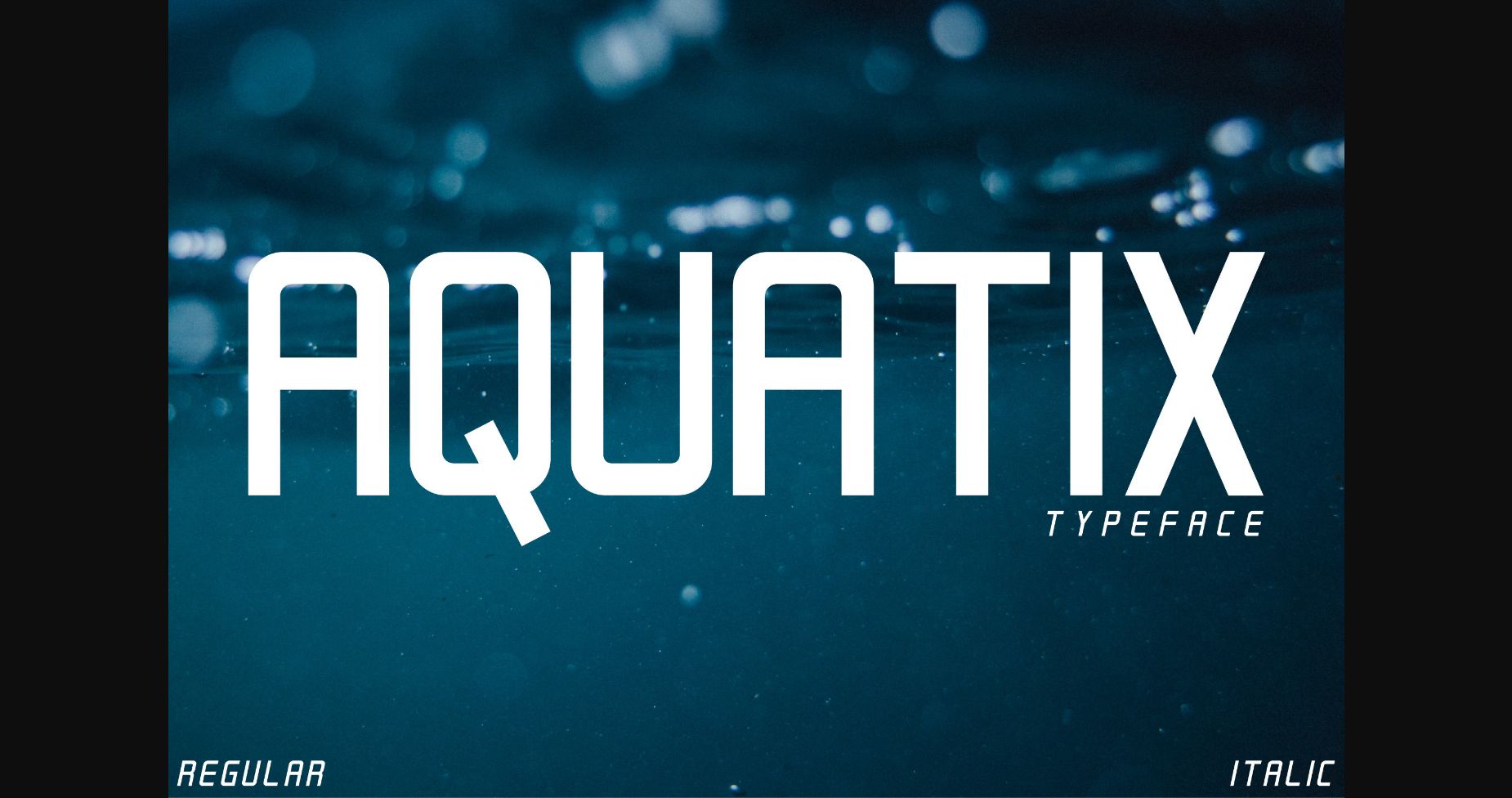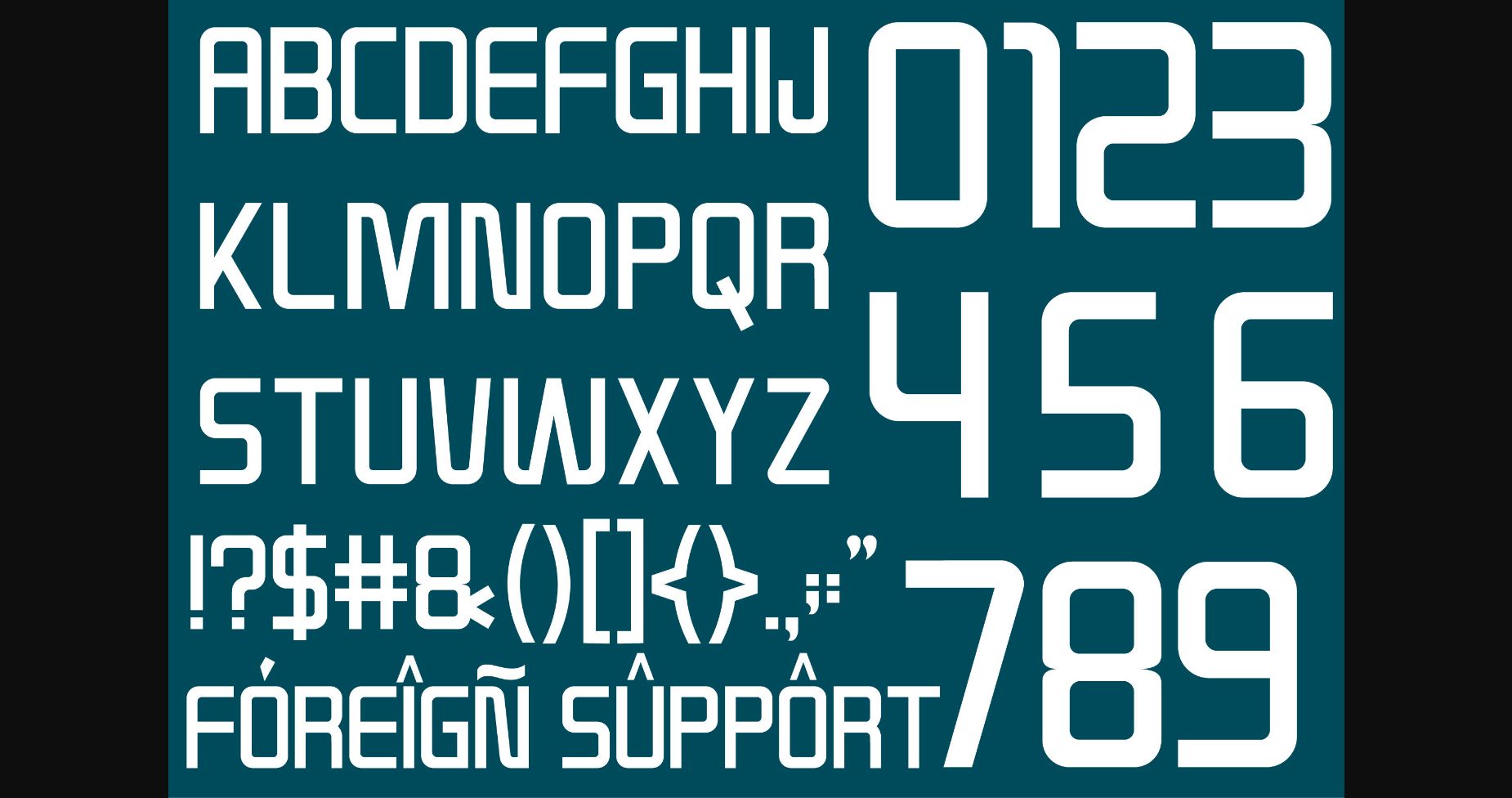
About Aquatix Font
Aquatix is a modern and clean sans-serif font that exudes simplicity and sophistication. Its perfectly balanced letterforms and minimal design make it ideal for web and mobile applications, as well as branding, editorial design, and other contemporary applications.